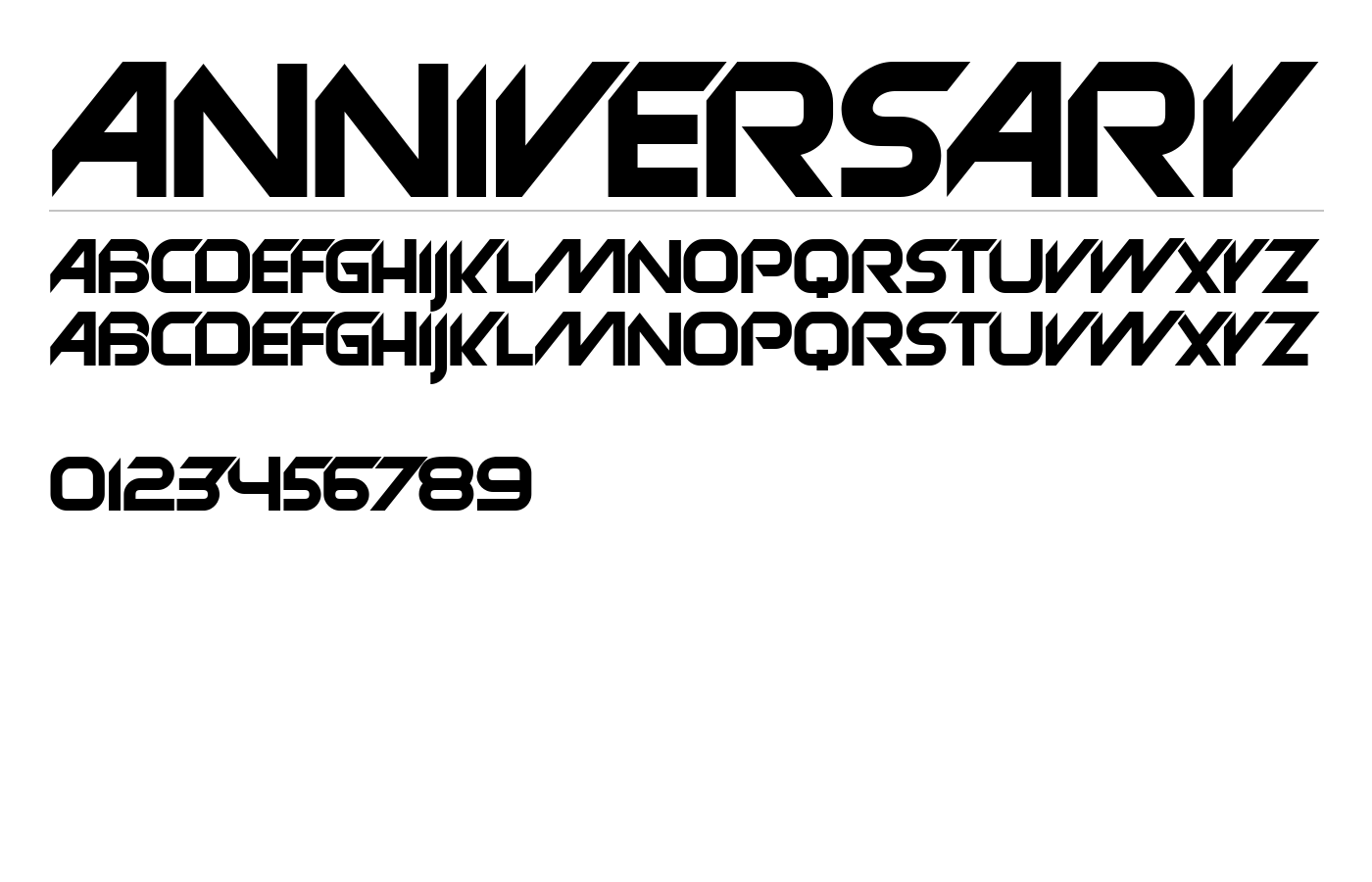
Anniversary Font is a bold, futuristic sans serif typeface with sharp, geometric angles and clean lines that create a dynamic, energetic feel. Its high contrast strokes and distinctive letterforms, including angular cuts and uniquely styled numbers, make it ideal for eye-catching headlines, branding, and posters where a modern, tech-inspired look is desired. This font works especially well for brands that want to convey innovation, strength, and forward-thinking style.
Anniversary Font
About Anniversary Font